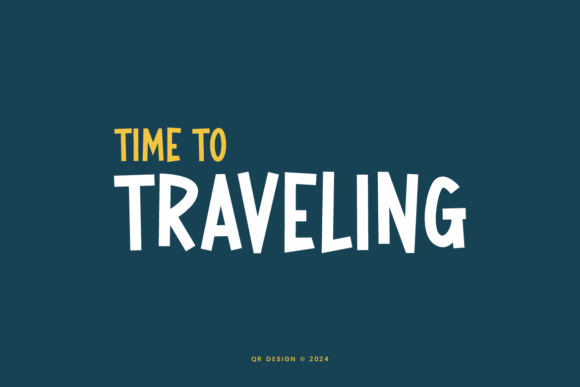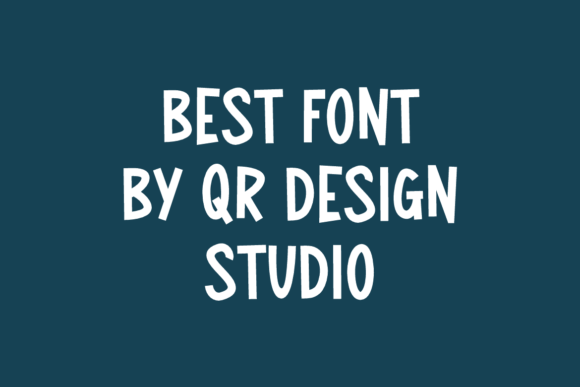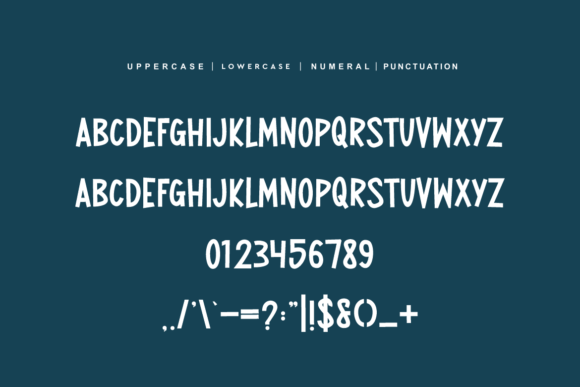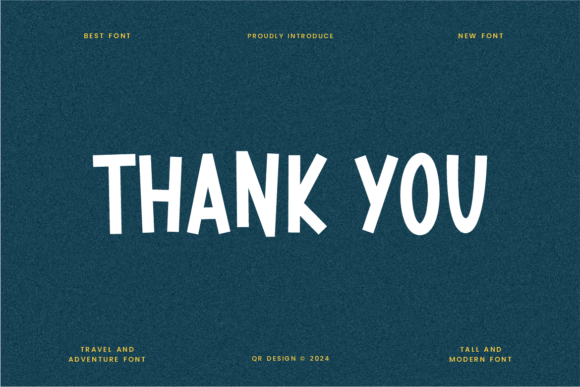
Ayokita Holiday Font: The Perfect Addition to Your Design Collection
Are you a designer or crafter looking for a unique and friendly font to add a personal touch to your projects? Look no further than Ayokita Holiday Font! This sweet and charming handwritten font is perfect for a wide range of designs, from holiday cards and decorations to branding and advertising materials.
What Makes Ayokita Holiday Font So Special?
Ayokita Holiday Font is a one-of-a-kind font that boasts a natural and unique style that’s sure to capture the attention of your audience. Its friendly and approachable vibe makes it perfect for designs that require a personal touch. Whether you’re creating a festive holiday card or a promotional flyer, Ayokita Holiday Font is the perfect choice.
The versatility of Ayokita Holiday Font is one of its most appealing features. Its natural and effortless style makes it incredibly fitting for a large pool of designs. From rustic and vintage-inspired projects to modern and sleek designs, Ayokita Holiday Font can be used in a multitude of ways. The only limit is your imagination!
Ayokita Holiday Font is a must-have for designers and crafters who want to add a personal touch to their projects. Whether you’re creating custom holiday cards, decorations, or gifts, this font is sure to make your designs stand out. Its unique and friendly style makes it perfect for a wide range of projects, including:
- Custom decorations and signage
- Branding and advertising materials
- Stationery and gift tags
Why Choose Ayokita Holiday Font?
- Unique and eye-catching style: Ayokita Holiday Font boasts a one-of-a-kind style that’s sure to capture the attention of your audience.
- Versatility: This font can be used in a wide range of designs, from rustic and vintage-inspired projects to modern and sleek designs.
Tips for Using Ayokita Holiday Font
Here are a few tips for using Ayokita Holiday Font in your designs:
- Pair it with complementary fonts: Ayokita Holiday Font looks great when paired with complementary fonts, such as serif or sans-serif fonts.
- Experiment with different colors: This font looks great in a variety of colors, from bright and bold to soft and pastel.
- Use it in combination with graphics: Ayokita Holiday Font looks great when used in combination with graphics, such as illustrations or photos.
Ayokita Holiday Font is a sweet and friendly handwritten font that’s perfect for designers and crafters who want to add a personal touch to their projects. Its unique and eye-catching style makes it incredibly fitting for a wide range of designs, from holiday cards and decorations to branding and advertising materials. With its versatility, ease of use, and high-quality craftsmanship, Ayokita Holiday Font is a must-have for any designer or crafter looking to take their designs to the next level.